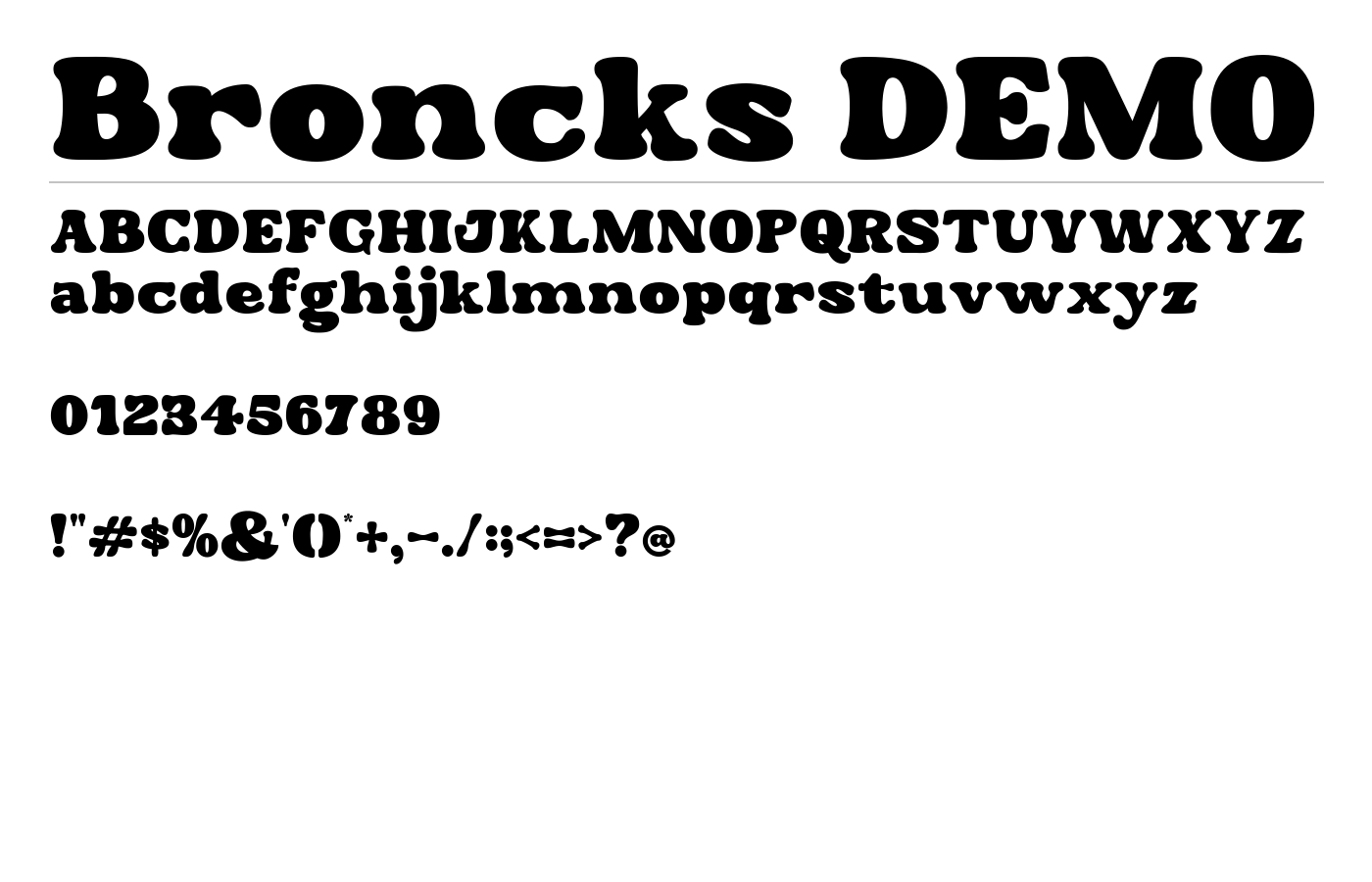
Broncks DEMO is a bold, slab serif font with thick, rounded serifs and a playful, heavy appearance that brings a friendly yet strong personality to text. Its high contrast and chunky letterforms with slight curves make it ideal for eye-catching headlines, logos, or creative branding where a vintage but approachable feel is desired. This font works well in designs that want to stand out and communicate confidence without sacrificing warmth or character.
Broncks DEMO Font
About Broncks DEMO Font